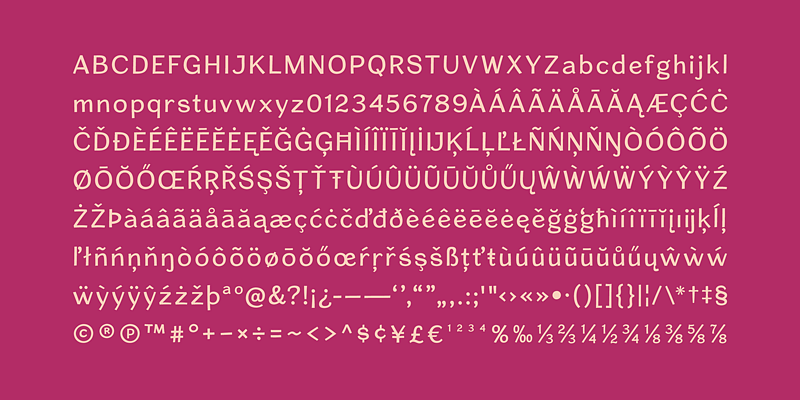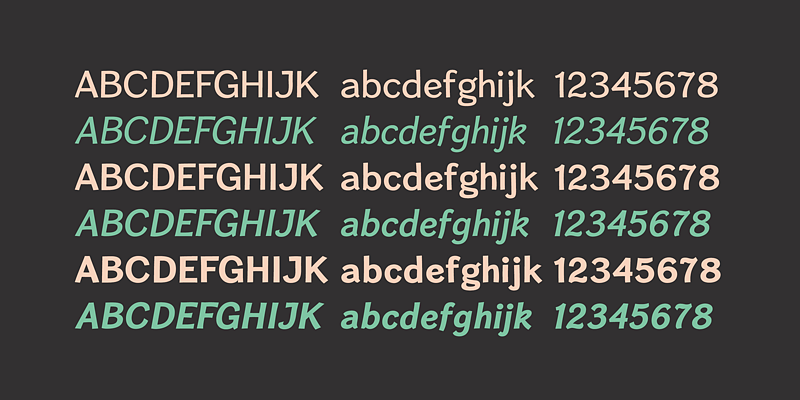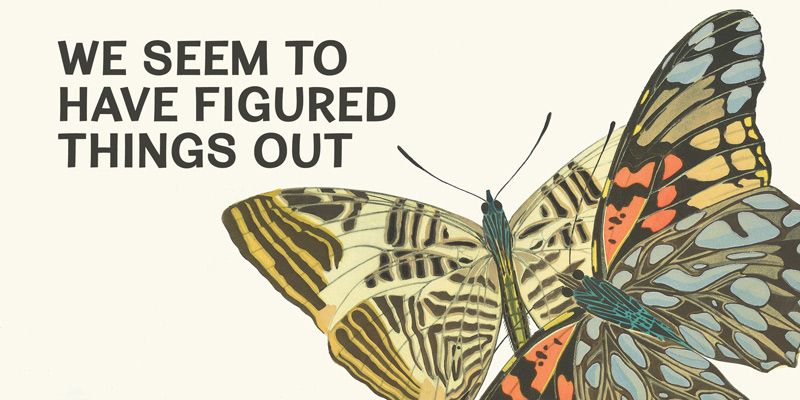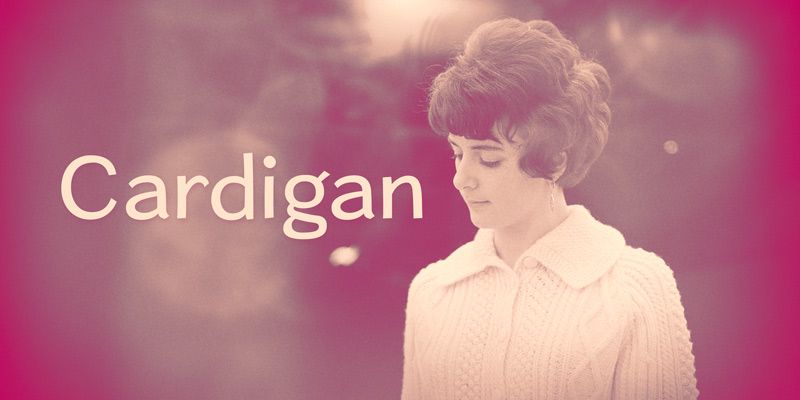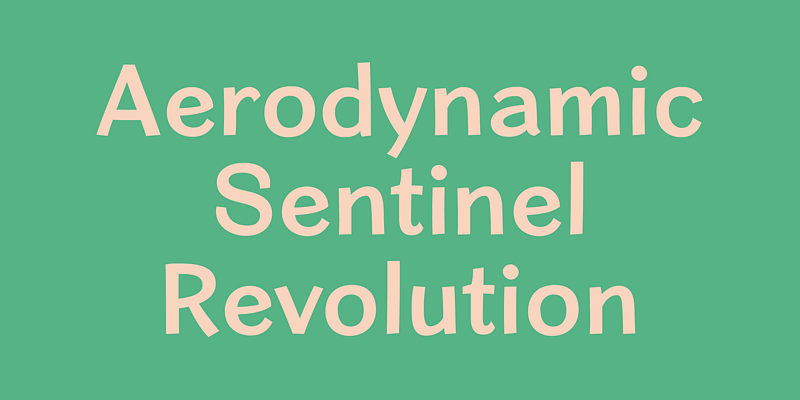
Cardigan is an informal sans serif whose letterforms stay familiar and readable. The slightly relaxed line gives it warmth without making every sentence feel like a headline, so it can carry explanations as well as introductions. It is a useful voice for organizations that need to guide readers through personal choices: community living, retirement planning, employee benefits, home-energy programs, and cooperative finance. A heading can feel welcoming, and the text below can continue in the same tone through a guide, brochure, or member newsletter. Cardigan also suits packaging and editorial projects that call for an approachable, matter-of-fact voice. Its character comes from small departures from rigidity, not from exaggerated quirks.